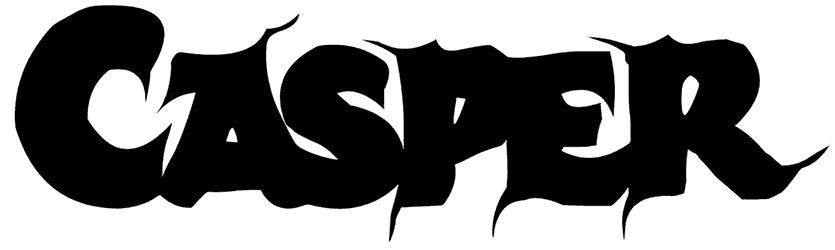
Casper Font
Designing a showpiece requires a lot of things, starting with font, and there is no better font to create a scary vibe than Casper. This display font with bold and round letters creates a comic-horror sense and that is absolutely gold for cartoons with ghost stories, live-action posters, Halloween banners, etc.
You get two different weights for the uppercase, but there is no lowercase, numbers, or punctuation marks. Download and have fun with it. Cheers!